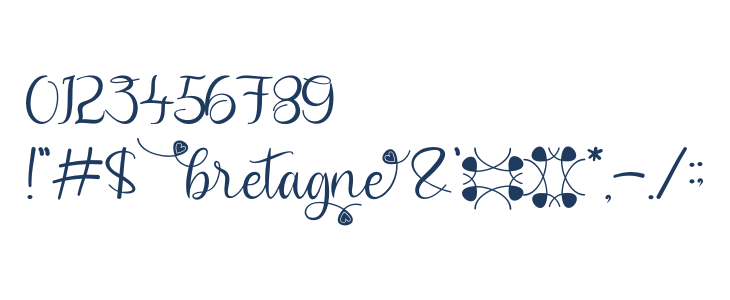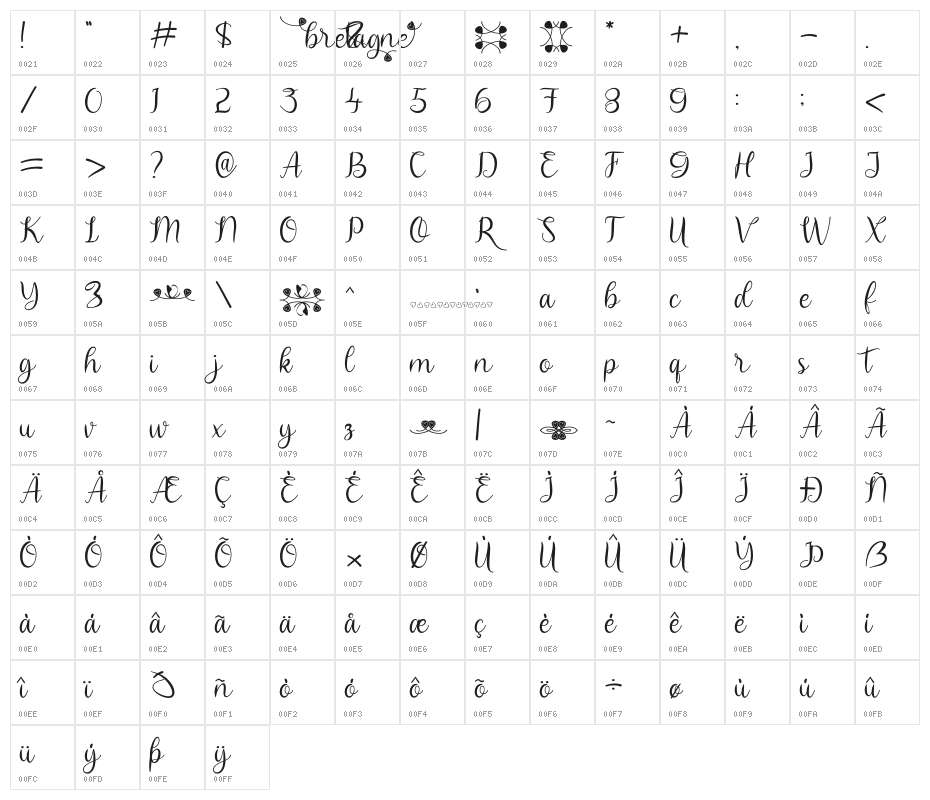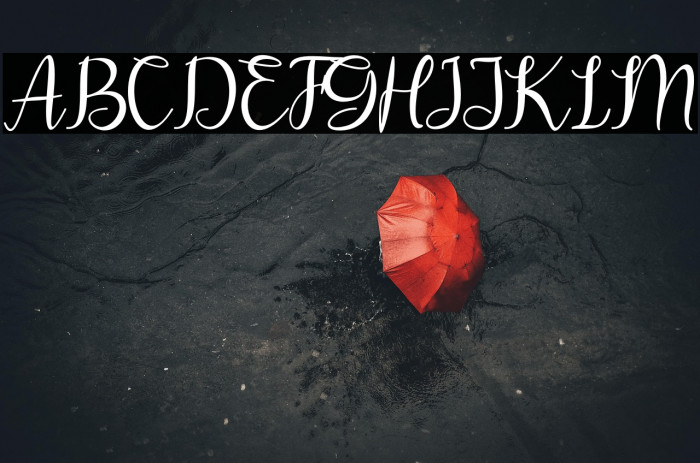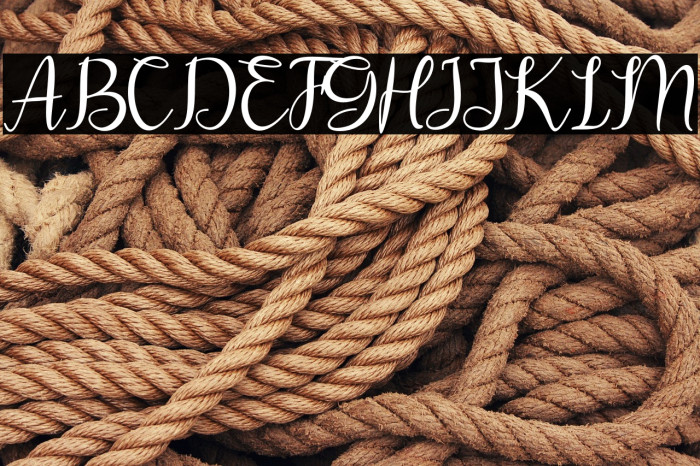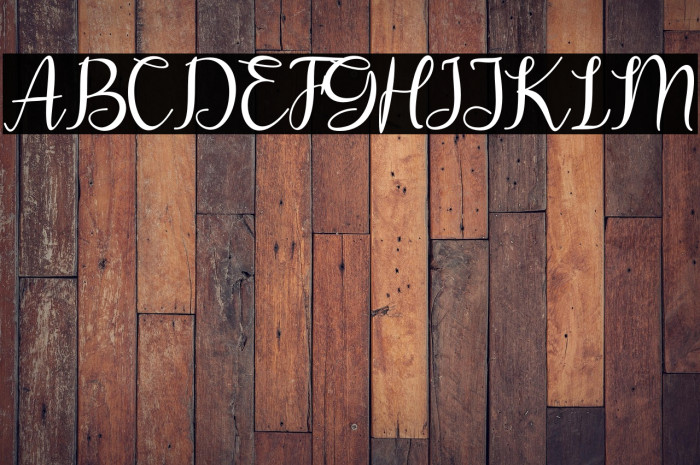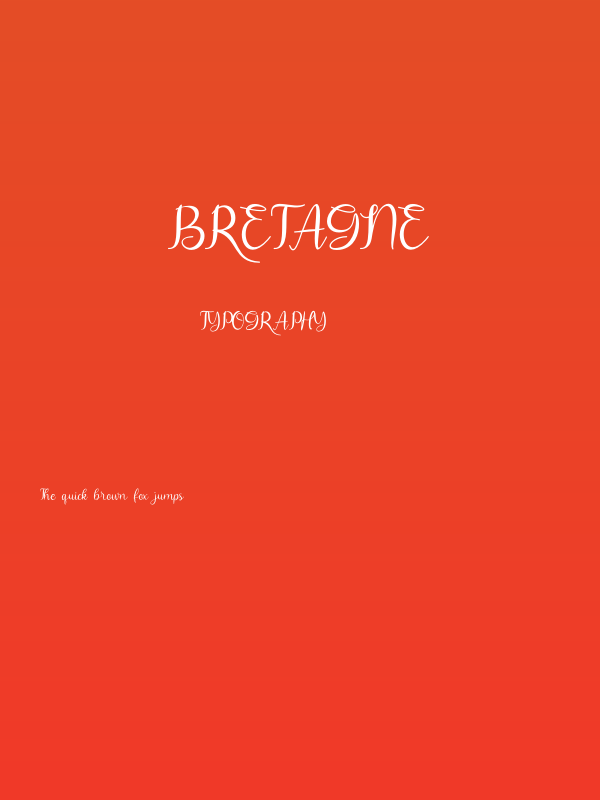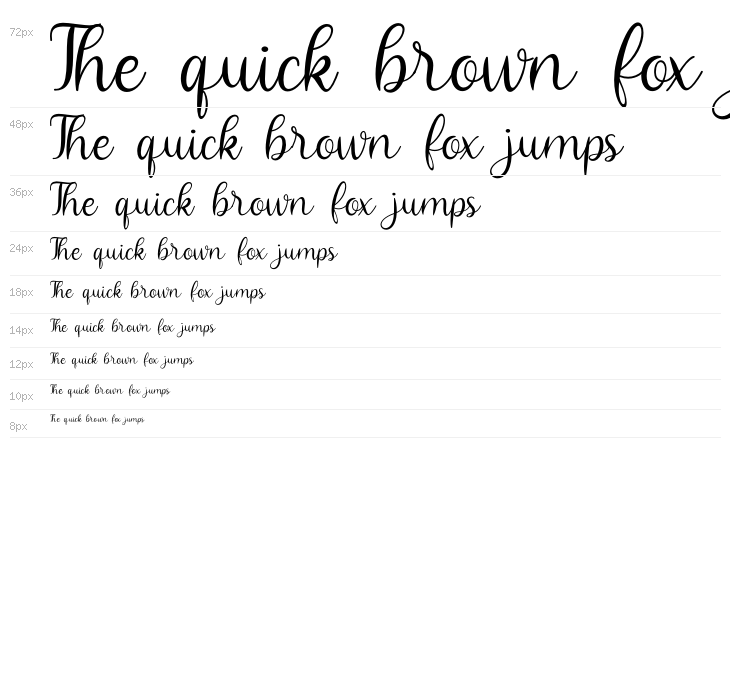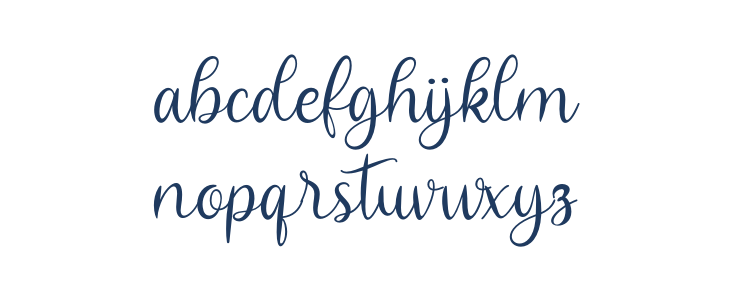
bretagne Font
bretagne Description
This font features an elegant and flowing script style, characterized by its graceful curves and loops. The uppercase letters exhibit a sophisticated flair with extended strokes and swashes, while the lowercase letters maintain a consistent fluidity, enhancing readability. The numerals are stylishly designed, complementing the overall aesthetic. Special characters are adorned with decorative elements, adding a touch of whimsy. This font exudes a sense of charm and sophistication, making it suitable for a variety of creative applications.